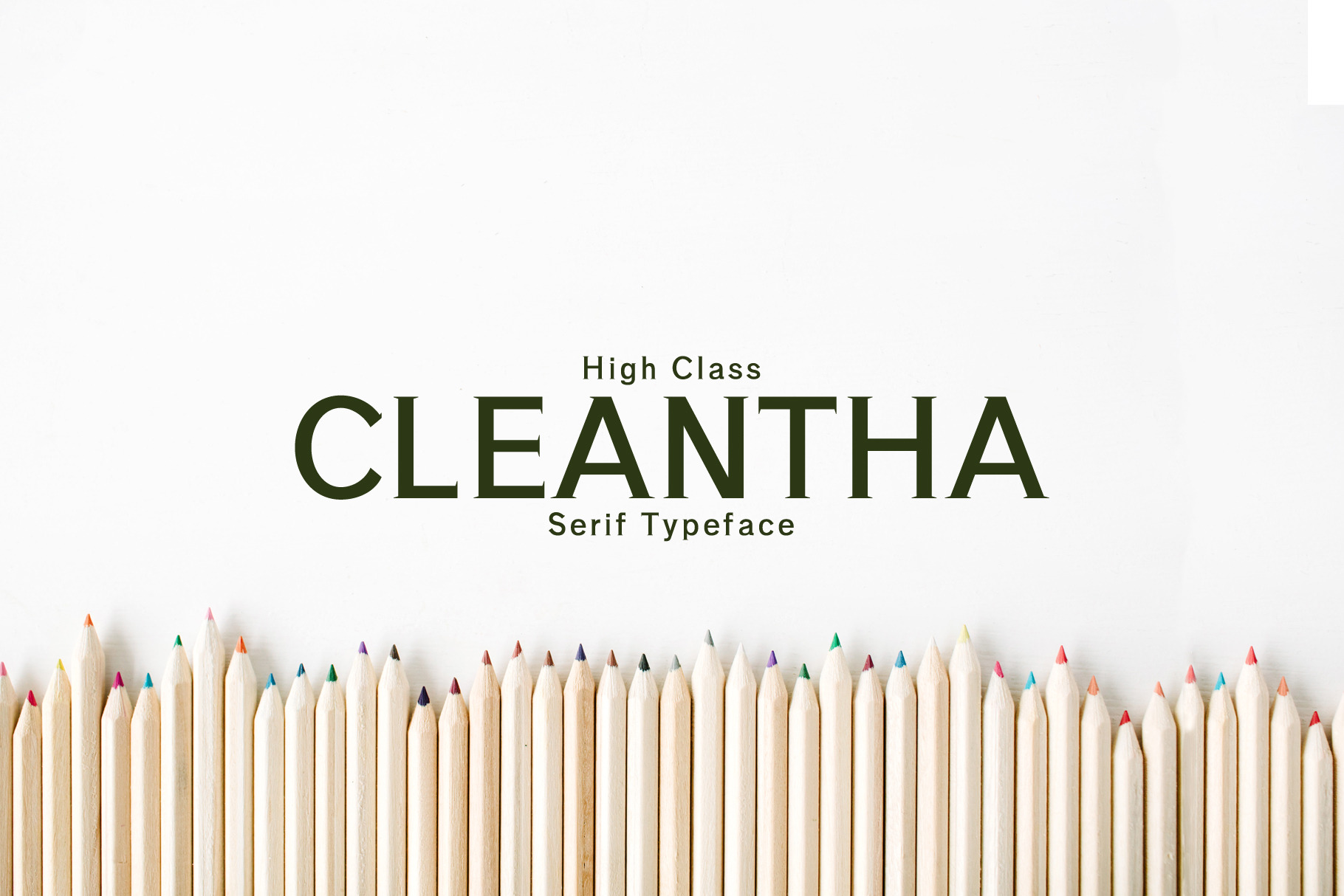
Cleantha Serif 5 Font Family Pack
Cleantha Serif Typeface is a minimal clean serif font family, which contains 5 weights and It features unique and modern serif look and feel. Perfect for gorgeous logos, titles, web layouts and branding. It looks gorgeous in all caps with a wide-set spacing if you want to try a classy look, or beautiful on its own in capital and lowercase letters for something completely timeless.
- Font Weight: Regular, Thin, Light, Outline and Bold
Cleantha Font Features:
- Uppercase Multilingual Letters
- Lowercase Multilingual Letters
- Non English Characters ( Latin Supplement + Latin Extended A )